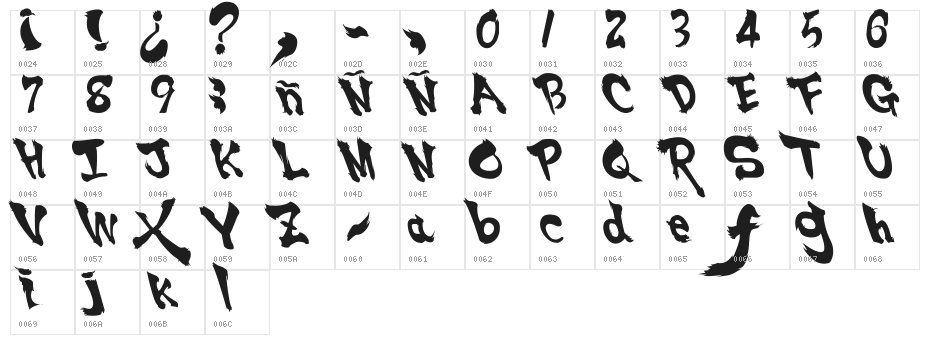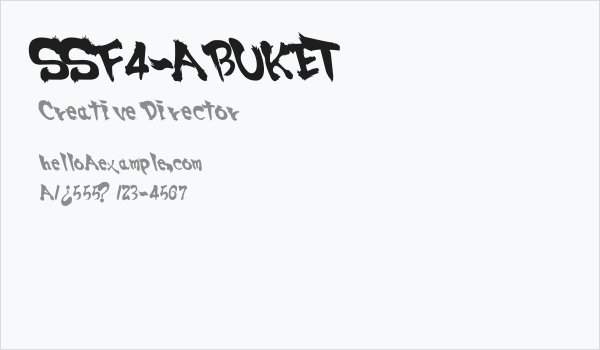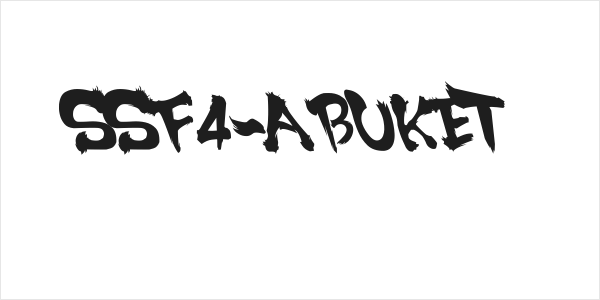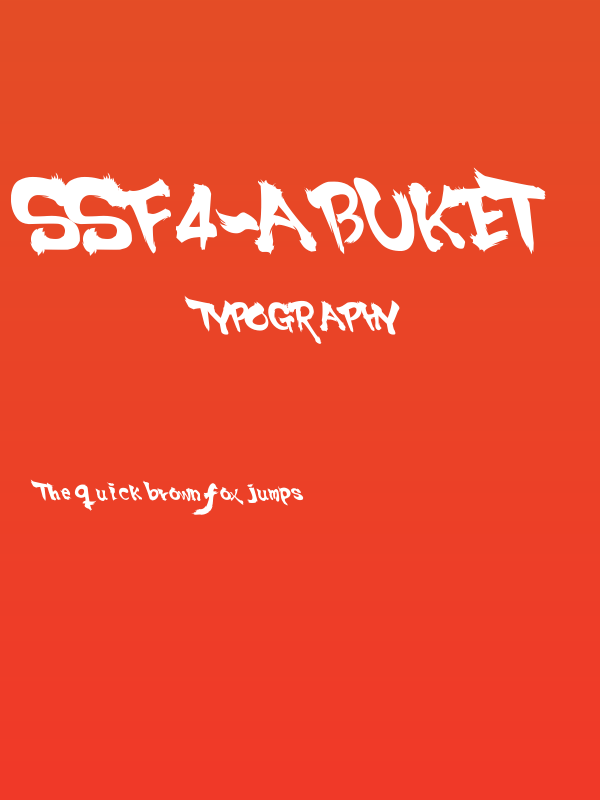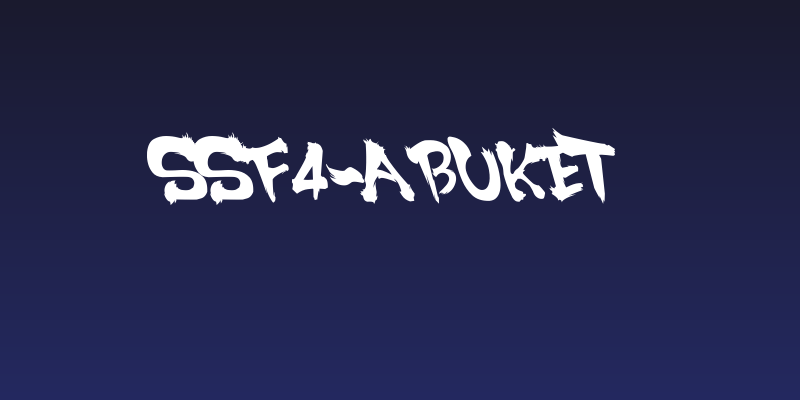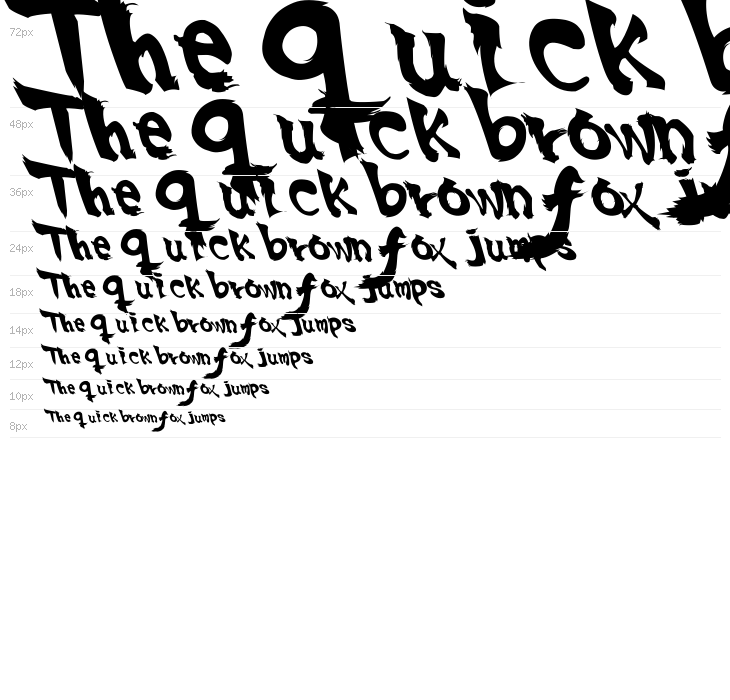
SSF4-ABUKET Font
SSF4-ABUKET Description
This font features a highly decorative and artistic style, characterized by its unique silhouette resembling a stylized animal or abstract shape. Each character is bold and striking, with a strong visual presence that makes it ideal for attention-grabbing designs. The intricate details and creative form give it a distinct personality, making it suitable for projects that require a touch of creativity and flair. The font's design is consistent across all characters, maintaining a cohesive and unified look.
| Use Case | Logos, Headlines |
| Proposed Projects | Ideal for artistic posters, creative branding, event invitations, and unique logo designs. |